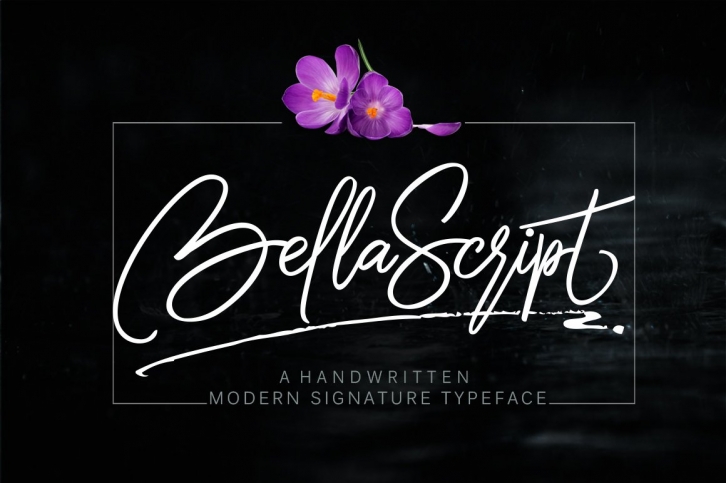
Bella Script is a original handwritten typeface, inspiration from writings everyday. perfect for your next design, such as logos, signature, printed quotes, handwritten quotes, invitations, cards, product packaging, merchandise, social media & greeting cards, headline magazine, headers and anything else about your imagination.
Bella Script It contains a full set of lowercase & uppercase, a large range of punctuation, numerals, and multilingual support. The font also contains several ligatures, Ligatures Alternates, stylistic alternates, Terminal Forms (fina), Initial Forms (init) & Swash, for you who have opentype capable software (e.g. Photoshop/Illustrator, Corel Draw).
Bella Script allows you to create custom dynamic text. you can access by turning on; Stylistic Alternates, and to obtain Swirl you can access by turning on Swash (uppercase), as well as ligatures in Photoshop, Adobe Illustrator, Adobe InDesign or through a panel of glyphs such as Adobe Illustrator, Photoshop CC, Let's switch from the reguler character into character alternative to get the text with the layout of your dreams.
Bella Script features +360 glyphs and has given PUA unicode (specially coded fonts), with tons of alternate characters. The pack can be accessed in full by any crafter or designer, without the requirement for extra design software, COMPATIBLE WITH SILHOUETTE & CRICUT DESIGN SPACE